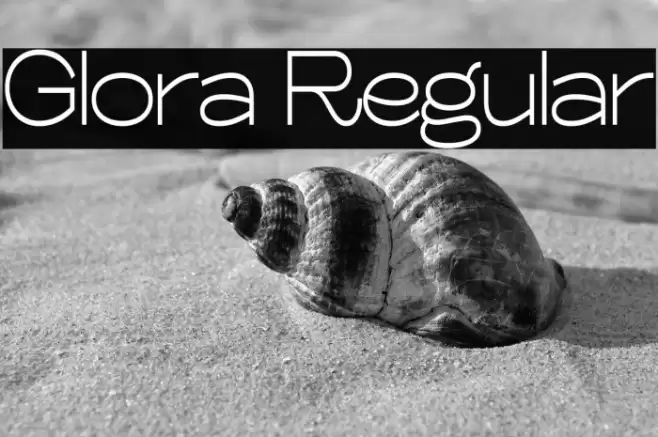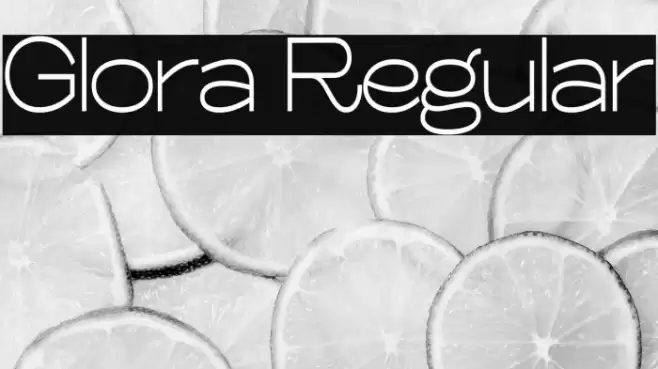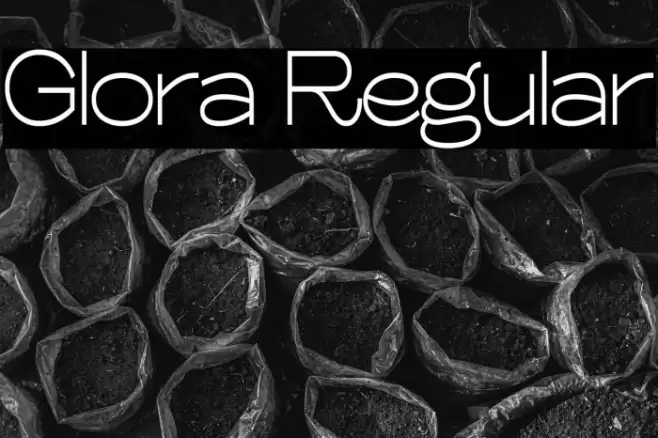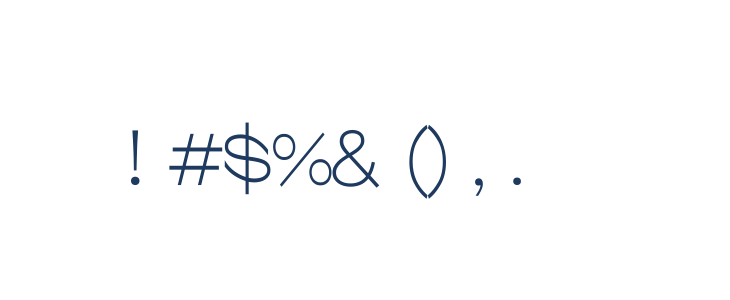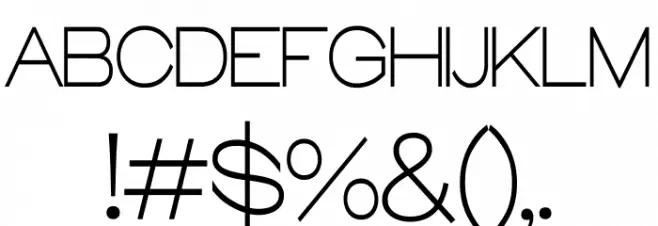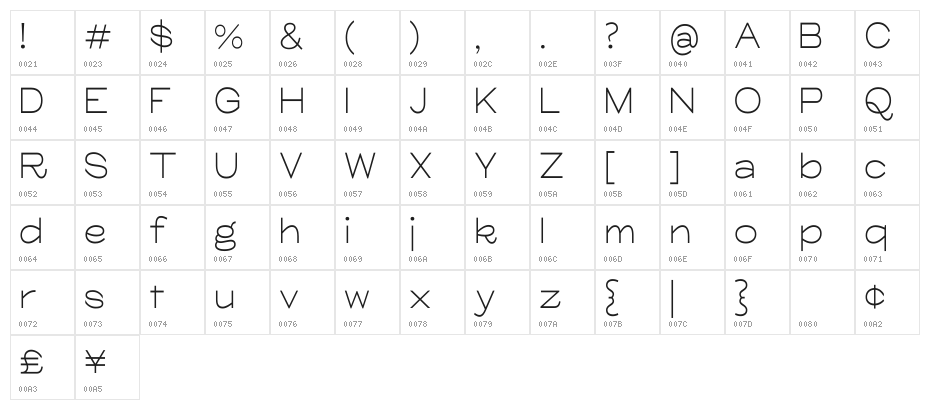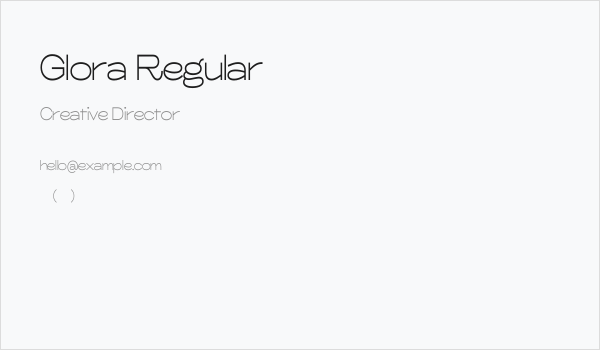
Glora Regular Font
Glora Regular Description
This font features a sleek and modern design with clean lines and a geometric structure. The characters are evenly spaced, providing a balanced and harmonious appearance. The uppercase letters are bold and assertive, while the lowercase letters maintain a consistent style with a slightly softer touch. The numerals are clear and easy to read, making them suitable for various applications. Special characters are included, adding versatility to the font's use. Overall, this font exudes a contemporary and professional vibe, ideal for projects that require a modern aesthetic.
A sleek, modern font with clean lines and geometric structure from Regular fonts.
- Proposed Projects: Ideal for branding, advertising, web design, and editorial projects.